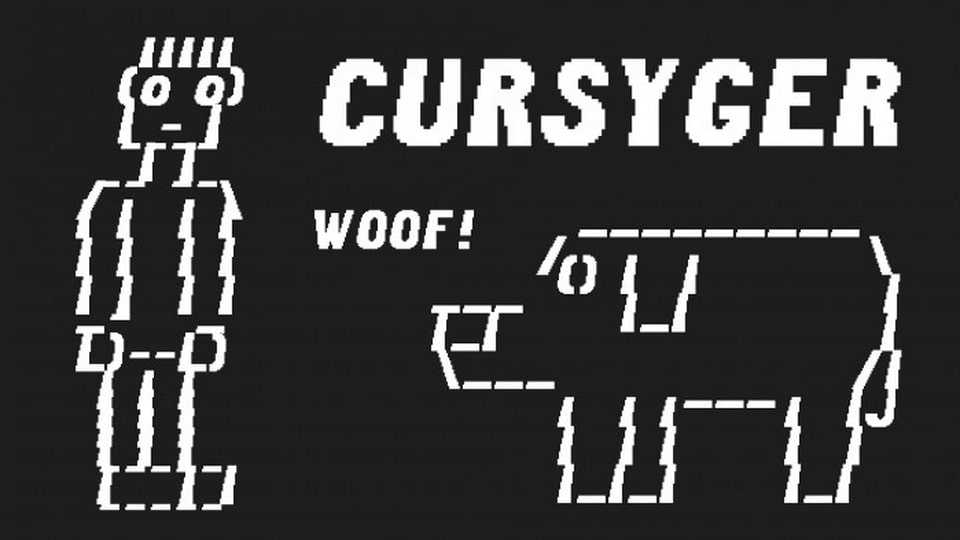
Download Cursyger font, a bold and playful pixel display typeface. With its unique personality Cursyger font is perfect for posters, games, web and pixel art.